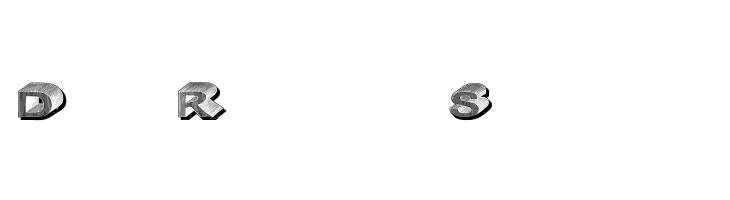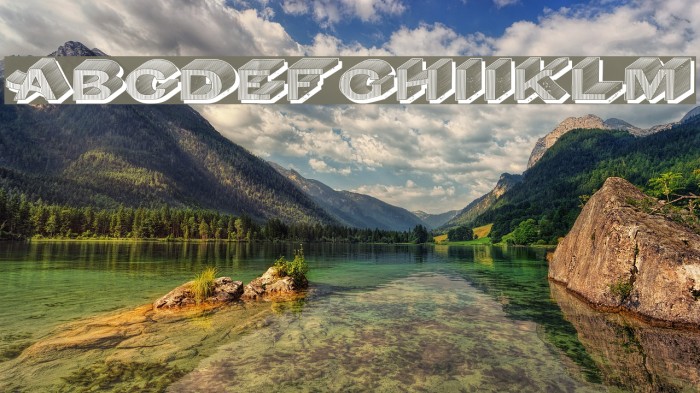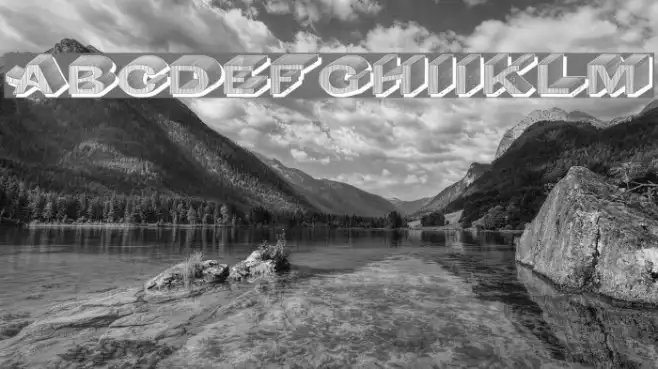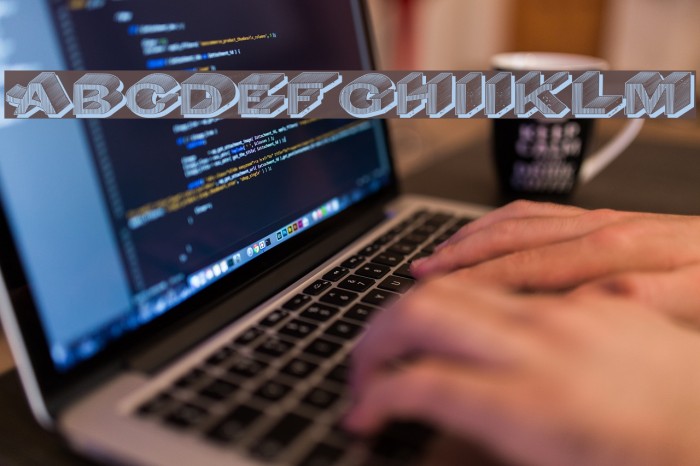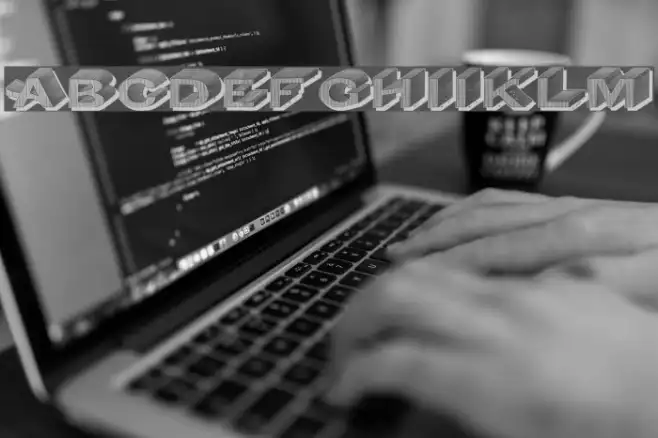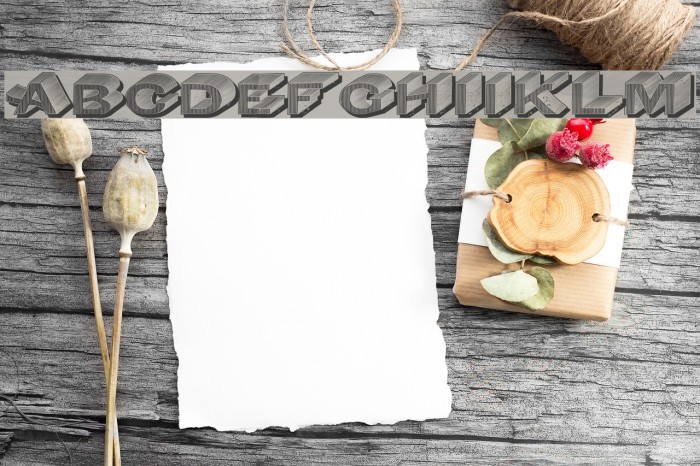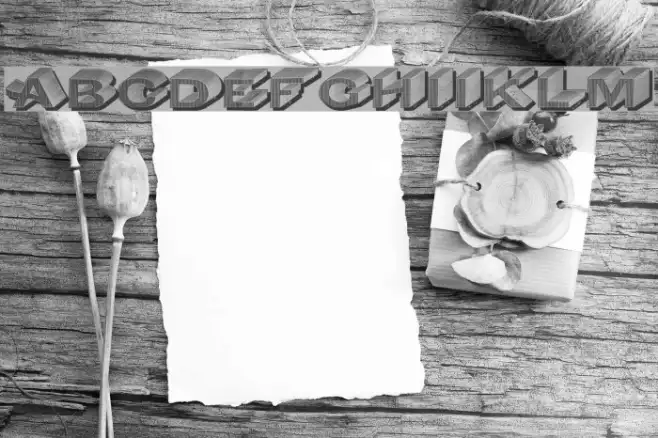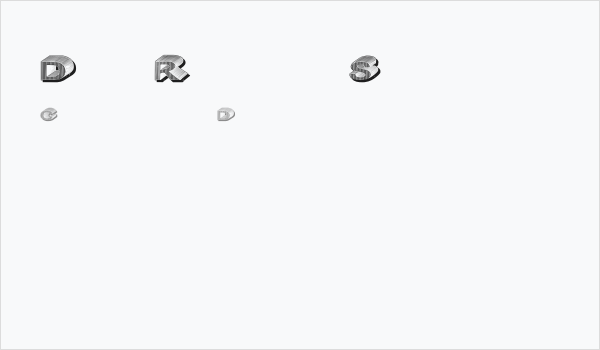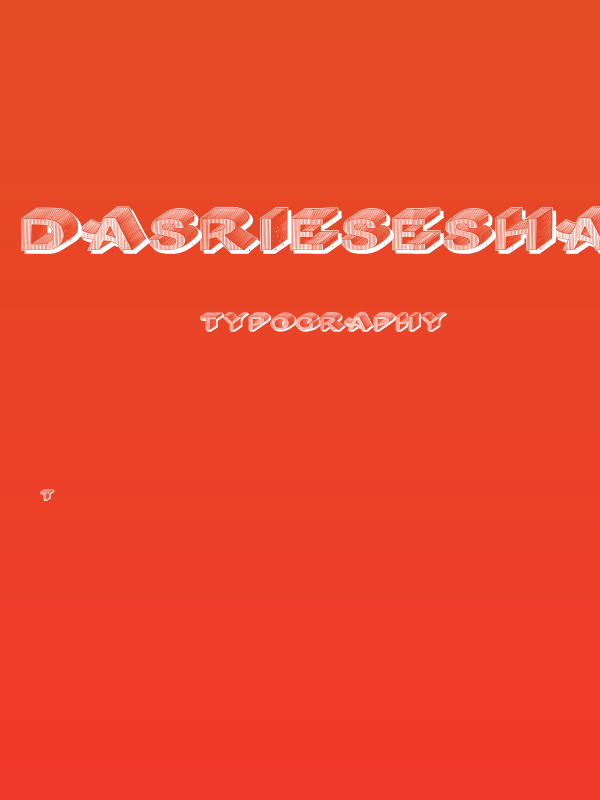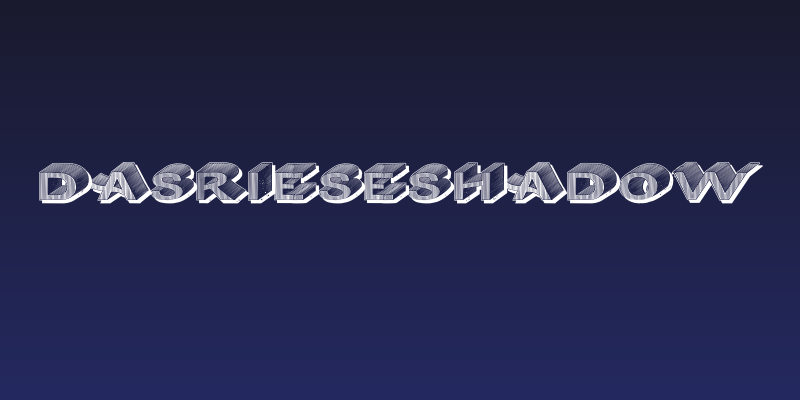
DasRieseShadow Font
DasRieseShadow Description
This font features a bold, three-dimensional design with a shadow effect that gives it a striking and dynamic appearance. The letters are uppercase and have a blocky, geometric structure, which is enhanced by the intricate line patterns within each character. The shadowing adds depth, making the font stand out, while the internal line work provides a textured, almost industrial feel. This combination of elements creates a visually impactful style that is both modern and reminiscent of vintage poster typography.
| Proposed Projects | Ideal for use in poster design, logos, headlines, and any project requiring a bold, eye-catching typeface with a vintage or industrial edge. |